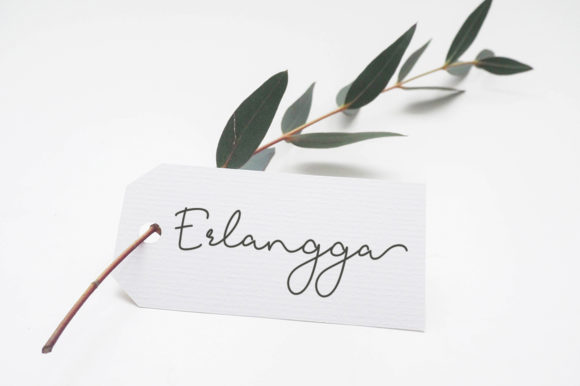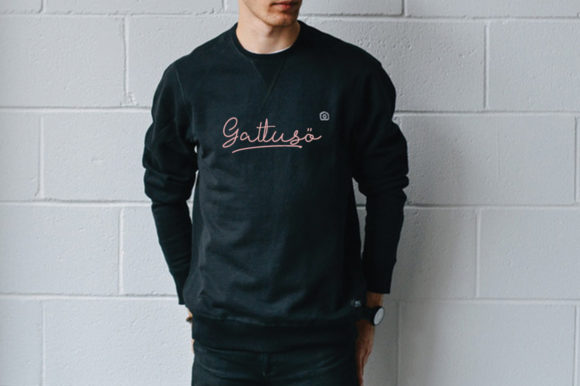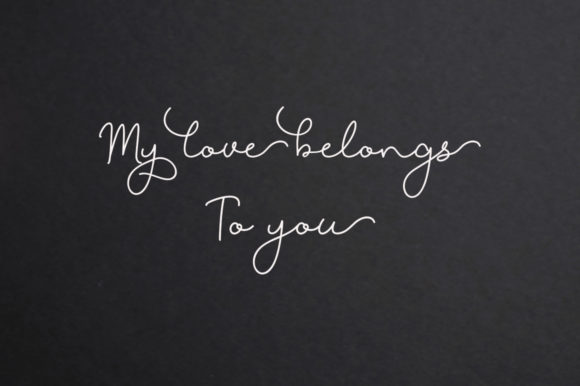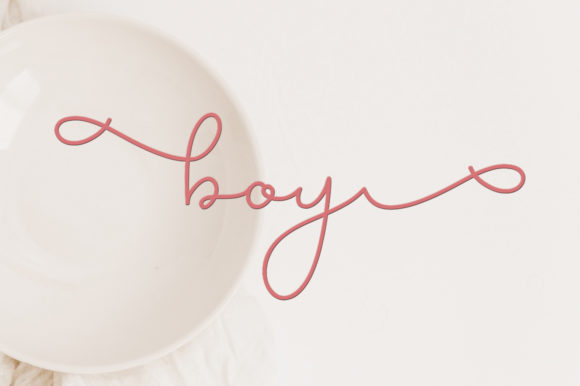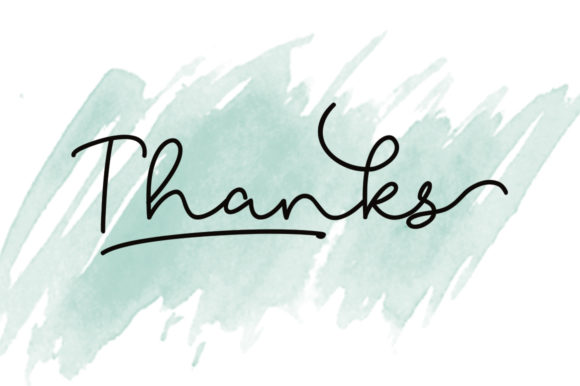
The Elusive Font: How Chilldranety Stole My Heart
I still remember the frustration of working on a design project, hours spent searching for the perfect font, only to come up empty-handed. My client wanted a stylish script font that exuded elegance, and I was determined to deliver. That’s when I stumbled upon Chilldranety, a beautiful script font with signature-like flourishes that left me breathless.
First Impressions: A Love Affair with Chilldranety
As soon as I laid eyes on Chilldranety, I knew I had found “the one.” Its elegant strokes, beautiful swashes, and refined aesthetic made it an instant favorite. But don’t just take my word for it – let’s dive into what makes Chilldranety so special.
- ✨ Elegant, flowing script with beautiful flourishes
- 💫 Signature-like appearance that’s perfect for logos, branding, and creative projects
- 🎨 Versatile and adaptable to various design styles
While Chilldranety is an exceptional font, it’s not without its quirks. For instance:
- 🤔 Some users may find the font a tad too ornate for certain projects, such as body text or captions.
- ⚠️ As with many script fonts, it may not be the best choice for very small font sizes or low-resolution displays.
The Story Behind Chilldranety: Designer Inspiration
While the true story behind Chilldranety’s creation remains a mystery, it’s easy to imagine that its designer was inspired by the world of calligraphy and hand-lettering. Perhaps they spent countless hours pouring over vintage typography books, experimenting with ink and paper to create a font that would evoke a sense of elegance and sophistication.
Q: What makes Chilldranety so special?
A: Chilldranety’s unique blend of elegance, legibility, and style makes it a standout font. Its beautiful swashes and flourishes add a touch of sophistication to any design.
Q: Is Chilldranety difficult to read?
A: No, Chilldranety is highly legible, even at smaller font sizes. However, as with any script font, it’s essential to use it in context and adjust font sizes accordingly.